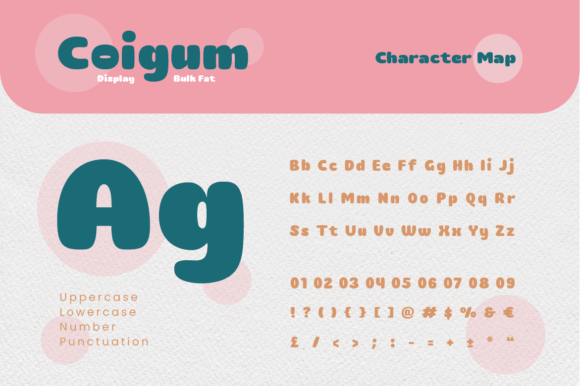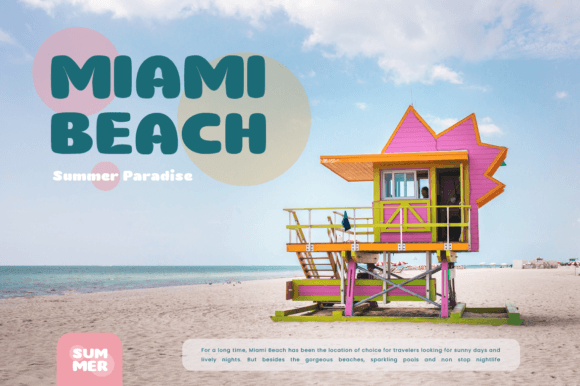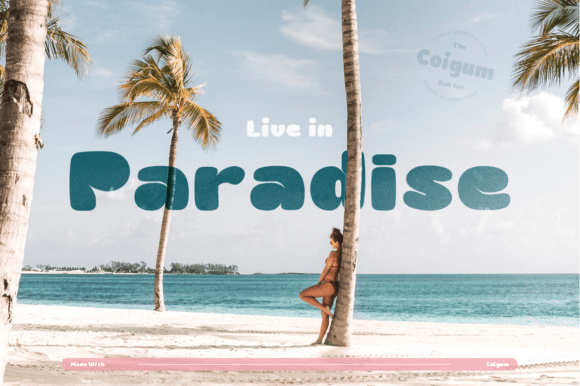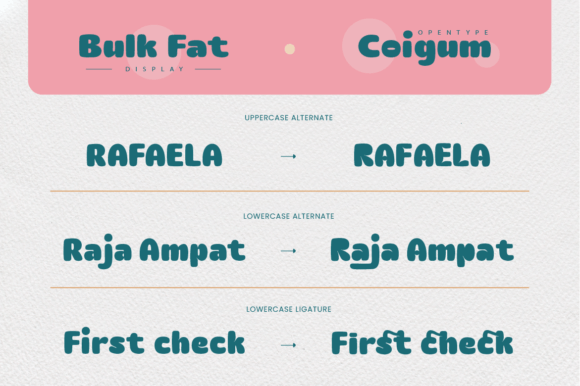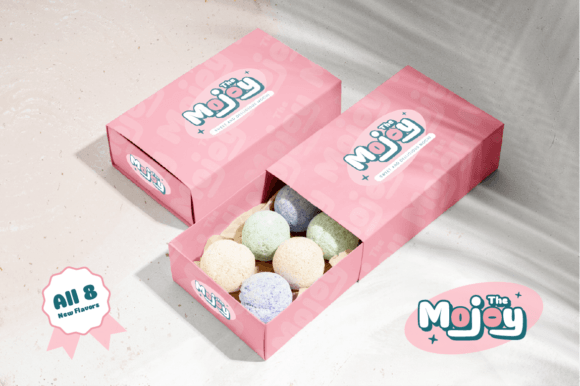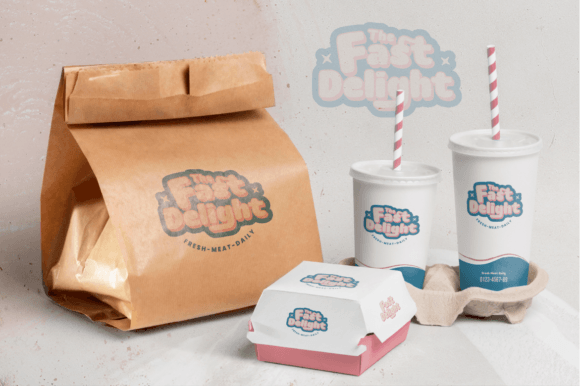
Introducing Coigum Font: The Ultimate Modern Display Font for Bold Designs
In the world of typography, fonts play a crucial role in conveying messages and making a lasting impression on viewers. For designers and crafters looking to add a touch of boldness and energy to their projects, Coigum Font is an excellent choice. This modern display font is specifically designed to create attention-grabbing headlines, titles, and logos that demand attention.
The Power of Coigum Font
Coigum Font boasts a bold and fat lettering style that is sure to make a statement. Its unique and modern design makes it perfect for projects that require a strong and impactful appearance. Whether you’re working on posters, advertisements, packaging, or branding materials, Coigum Font is the ideal choice. Its bold and eye-catching design ensures that your message is conveyed effectively, leaving a lasting impression on your audience.
Key Features of Coigum Font
- Modern Display Font: Coigum Font is a modern display font designed to make a statement. Its sleek and contemporary design ensures that your projects stand out from the crowd.
- Bold and Fat Lettering Style: The font’s bold and fat lettering style is perfect for creating attention-grabbing headlines, titles, and logos.
- Versatile: Coigum Font is versatile and can be used for a variety of projects, including posters, advertisements, packaging, and branding materials.
- Unique and Modern Design: The font’s unique and modern design ensures that your projects have a fresh and contemporary look.
Why Choose Coigum Font?
Coigum Font is an excellent choice for designers and crafters looking to add a touch of boldness and energy to their projects. Here are some reasons why:
- Attention-Grabbing: Coigum Font is designed to grab attention. Its bold and fat lettering style ensures that your message is conveyed effectively.
- Easy to Read: Despite its bold design, Coigum Font is easy to read, making it perfect for headlines, titles, and logos.
- Customizable: Coigum Font is customizable, allowing you to adjust the font size, color, and style to suit your project’s needs.
- Time-Saving: With Coigum Font, you can create professional-looking designs in no time. Its bold and modern design ensures that your projects look polished and refined.
How to Use Coigum Font
- Pair it with Other Fonts: Coigum Font pairs well with other fonts. Experiment with different font combinations to create a unique look.
- Adjust Font Size and Color: Adjust the font size and color to suit your project’s needs. Coigum Font is versatile and can be used in a variety of contexts.
- Use it for Headlines and Titles: Coigum Font is perfect for headlines and titles. Use it to create attention-grabbing headings that demand attention.
Coigum Font is a modern display font that is perfect for creating attention-grabbing headlines, titles, and logos. Its bold and fat lettering style is sure to make a statement and capture the viewer’s attention. With its unique and modern design, Coigum Font is an excellent choice for designers and crafters looking to add a touch of boldness and energy to their projects. Whether you’re working on posters, advertisements, packaging, or branding materials, Coigum Font is the ideal choice.